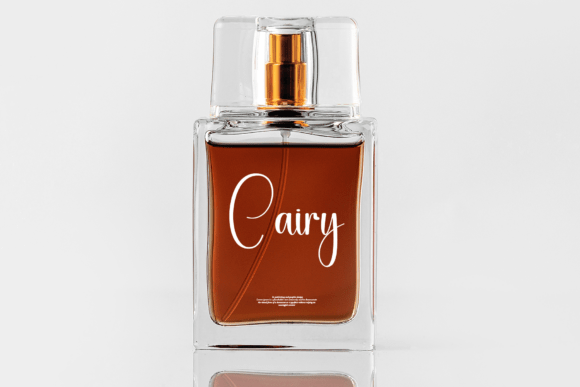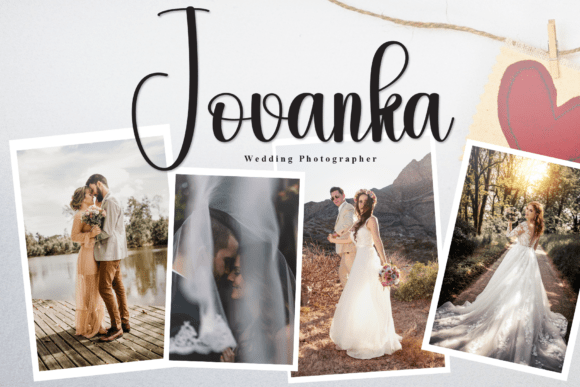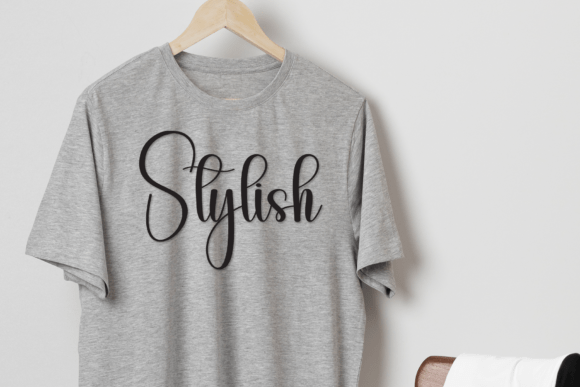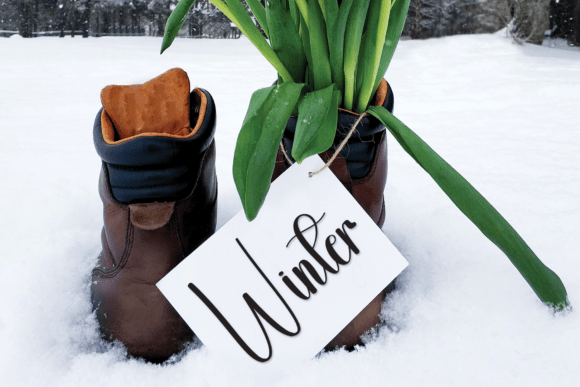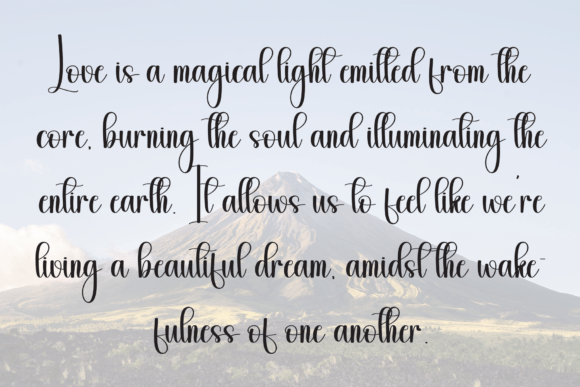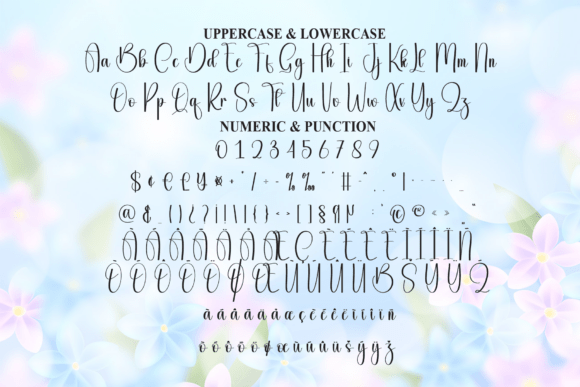
Introducing the Beautiful Font: A Delightfully Whimsical Handwritten Display Font
Are you tired of using the same old fonts in your designs? Look no further! Our Beautiful Font is a charming and whimsical handwritten display font that is sure to add a touch of magic to your projects. With its sweet and friendly demeanor, this captivating font is perfect for designers and crafters who want to create elegant and playful designs that stand out from the crowd.
The Perfect Blend of Sophistication and Quirkiness
Our Beautiful Font is an effortless blend of sophistication and quirkiness, making it perfect for a variety of projects. Whether you’re designing elegant wedding invitations, crafting heartwarming greeting cards, or creating fun and playful social media graphics, this font is sure to impress. Its unique and whimsical design adds a touch of personality to any design, making it instantly more engaging and eye-catching.
Infuse Your Designs with a Playful and Fun Touch
One of the best things about our Beautiful Font is its ability to instantly infuse any design with a playful and fun touch. Its whimsical design and friendly demeanor make it perfect for creating designs that are fun, lighthearted, and engaging. Whether you’re designing for a children’s party, a baby shower, or just want to add some personality to your brand, this font is sure to deliver.
Elegant and Versatile: Perfect for a Variety of Projects
Our Beautiful Font is not just limited to playful designs. Its elegant and sophisticated design also makes it perfect for more formal projects, such as wedding invitations, formal announcements, and business cards. Its versatility is one of its best features, making it a great addition to any designer’s toolkit.
Key Features of the Beautiful Font
- Delightfully whimsical handwritten design: Our Beautiful Font features a unique and whimsical handwritten design that adds a touch of personality to any project.
- Sweet and friendly demeanor: The font’s sweet and friendly demeanor makes it perfect for creating designs that are warm and inviting.
- Effortless blend of sophistication and quirkiness: The font’s unique design combines sophistication and quirkiness, making it perfect for a variety of projects.
- Perfect for elegant and playful designs: Whether you’re designing elegant wedding invitations or playful social media graphics, this font is sure to impress.
- Use it as a display font: Our Beautiful Font is perfect for use as a display font, where its unique design can really shine.
- Pair it with a simple font: For body text, pair the Beautiful Font with a simple font to create a striking contrast.
- Experiment with different colors: The font’s whimsical design looks great in a variety of colors, so don’t be afraid to experiment and find the perfect hue for your design.